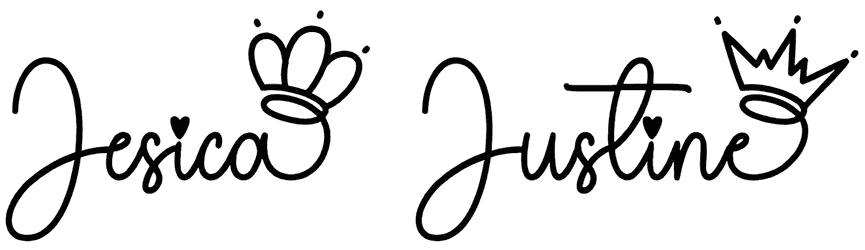
Jesica Justine Font
Jesica Justine font can be the right tool for you if you want to differentiate your final product from others and help create a sense of originality. Whether this wedding font is used for invitations, logos, or branding materials, it can add personality and charm to you that cannot be replicated with digital fonts.
Therefore, you can use its unique and creative facilities to surprise your audience and gain their trust by creating a personal space.